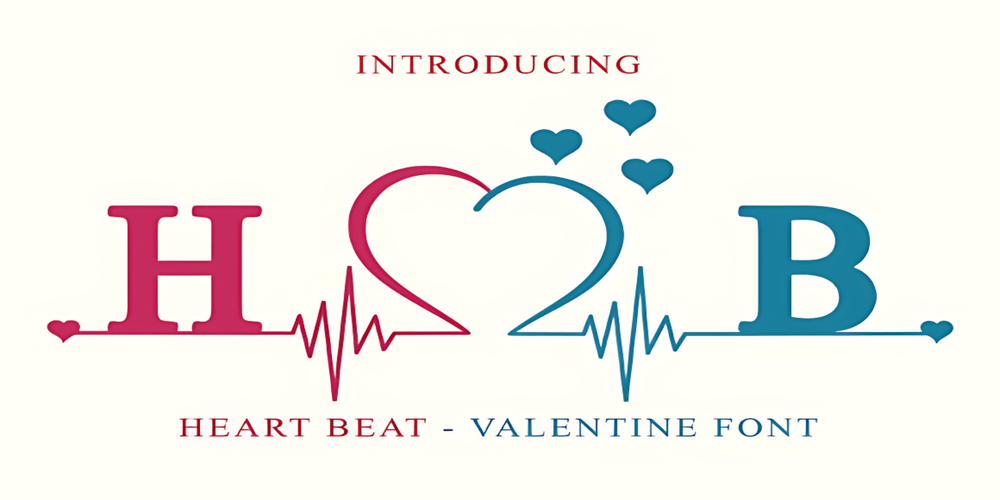
Heart Beat Love
Heart Beat Love font
Heart Beat Love Font Family was designed by Dimas Aditya and published by Adita Fonts. Heart Beat Love contains 1 styles and family package options. Heart Beat Love is a unique and adorable Valentine’s font. This decorative font will beautifully complement your couple’s Valentine’s Cards, t-shirts, invitations, book covers, posters, etc.